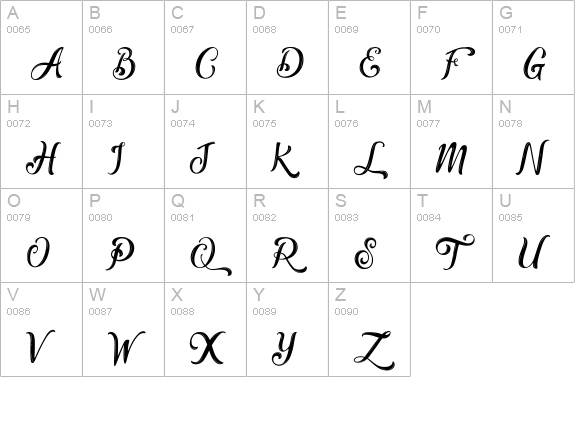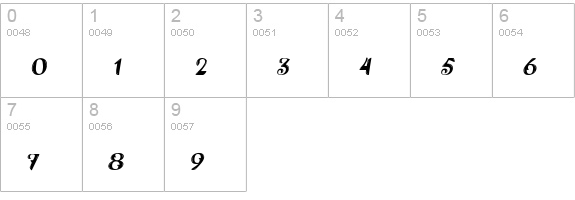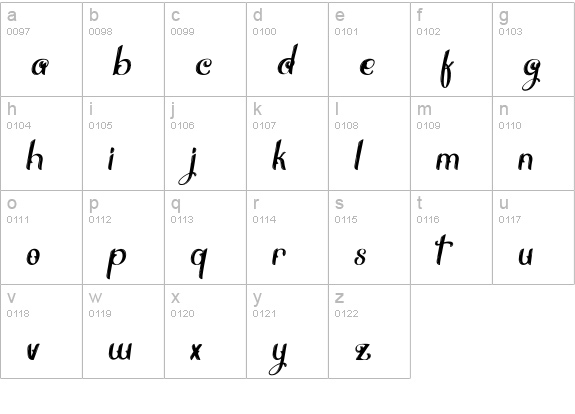
Thrones - Classic Typeface is a free for personal use font in the Fancy > Decorative category, designed by madeDeduk. It has been downloaded 81 times and is available for Windows, Mac and Linux.
Thrones - Classic Typeface font is a timeless and elegant typeface that exudes sophistication and charm. With its bold and regal design, this font is perfect for creating eye-catching headlines, branding materials, and elegant invitations. The clean lines and classic shape of each letter make Thrones a versatile choice for a wide range of design projects.